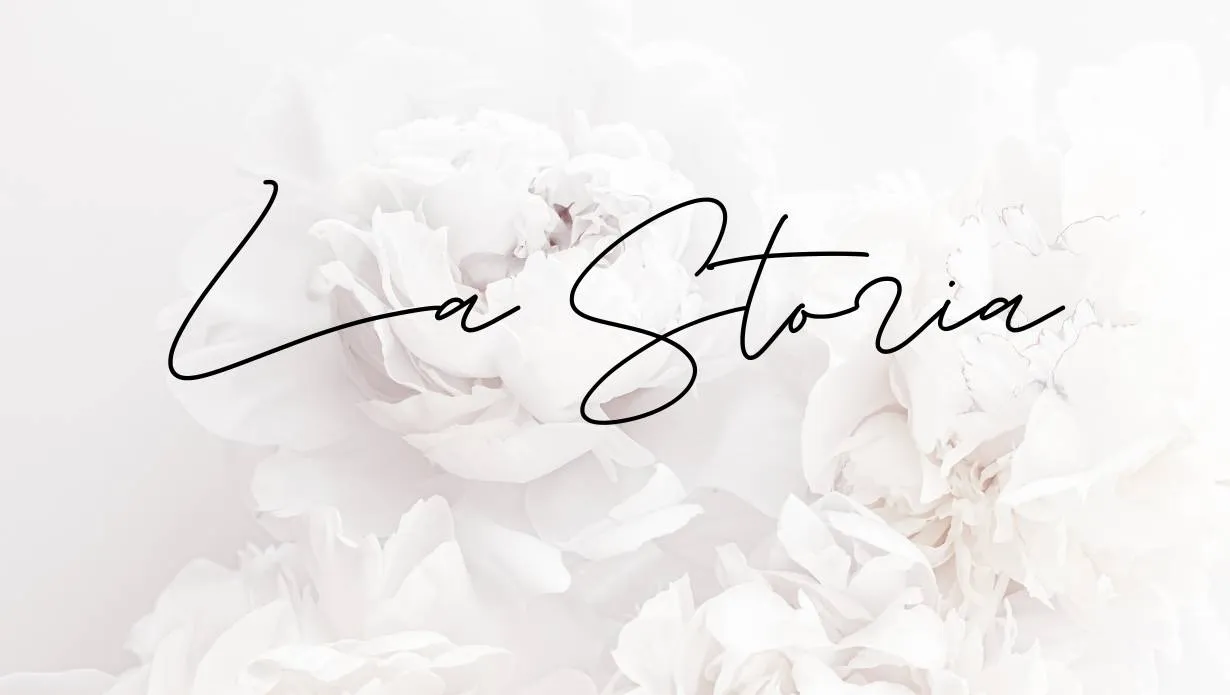
La Storia Signature Font is a elegant and romantic script typeface with graceful flowing characteristics.
It’s often chosen for wedding invitations, love-themed branding, and designs that aim to evoke a sense of warmth and affection.
| Name | La Storia Signature Font |
| Designer | Abo Daniel |
This font’s cursive style and delicate strokes create a feeling of romance and charm in your projects.